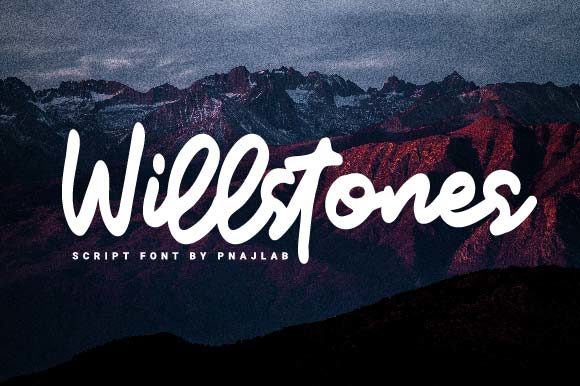
Step into the realm of exquisite typography with Willstones Font, a script font family that is not just a font, but an artistic masterpiece. Its bold and classic handwritten strokes dance across your designs, leaving a trail of authenticity and elegance in their wake.
Crafted by the esteemed hand of pżarłab, Willstones Font is the epitome of artistry. Its every curve and stroke has been meticulously crafted to capture the essence of authentic penmanship, giving your designs a touch of timeless charm.
Whether you're a seasoned designer or just starting your creative journey, Willstones Font is the perfect font for adding a touch of class and individuality to your work. Its script style is incredibly versatile, lending itself seamlessly to a variety of design projects.
Experience the beauty of script typography with Willstones Font. Its bold strokes demand attention, while its classic elegance ensures your designs stand the test of time. Step into the world of Willstones Font and let your creativity flow!
Dive into the script font family that's making waves in the design world. Willstones Font is the ultimate choice for adding a touch of authenticity to your next design project. Its bold and classic handwritten strokes will leave your audience spellbound, while its timeless appeal will keep your designs relevant for years to come.